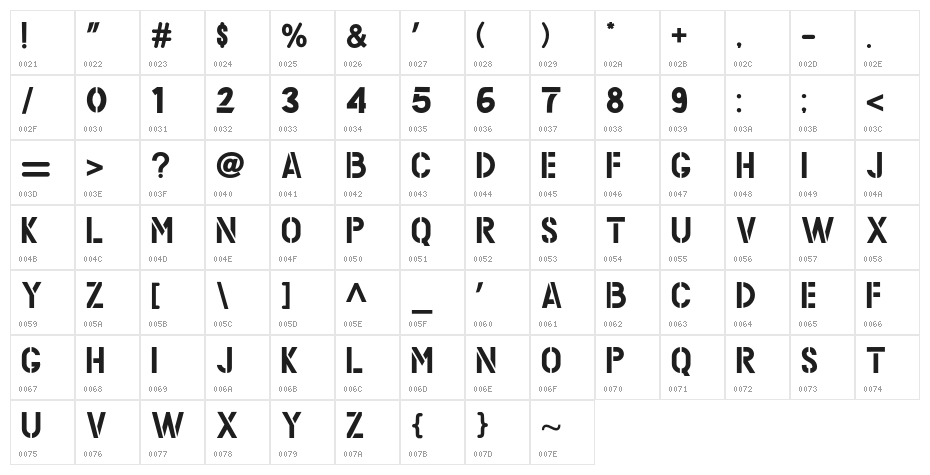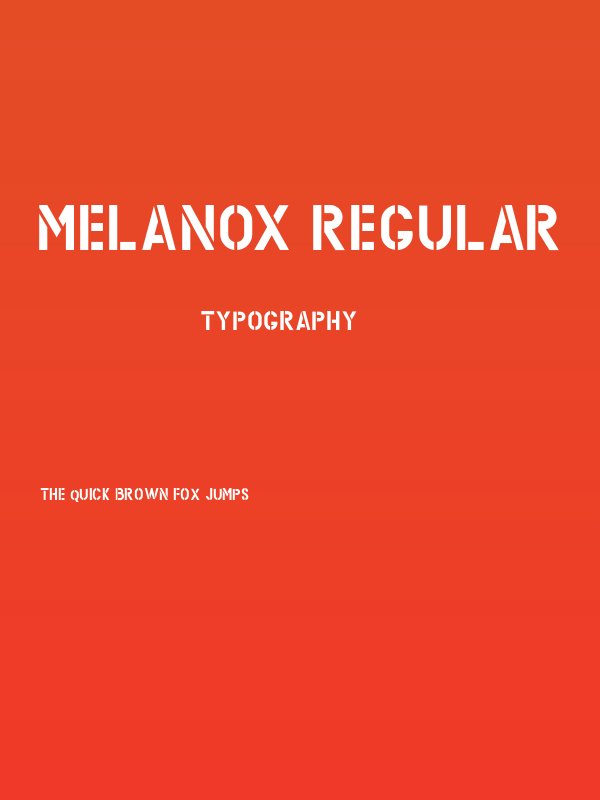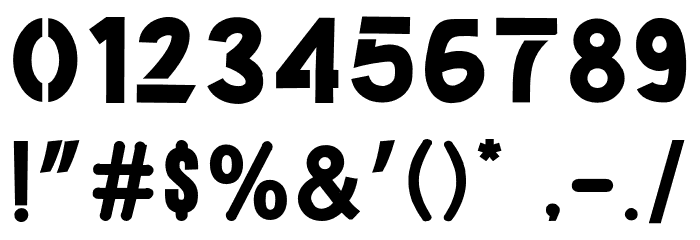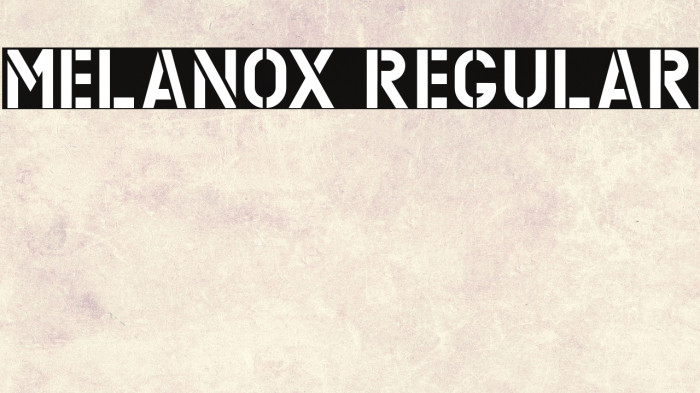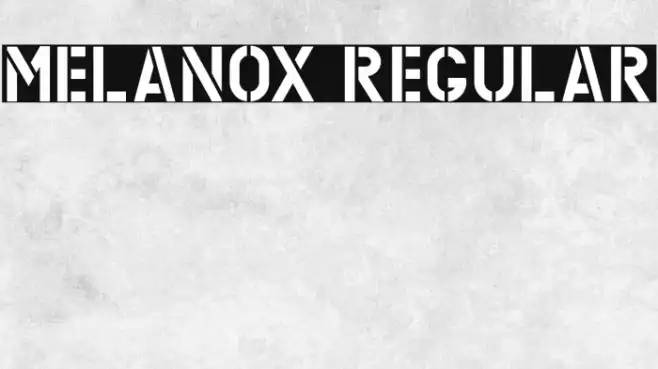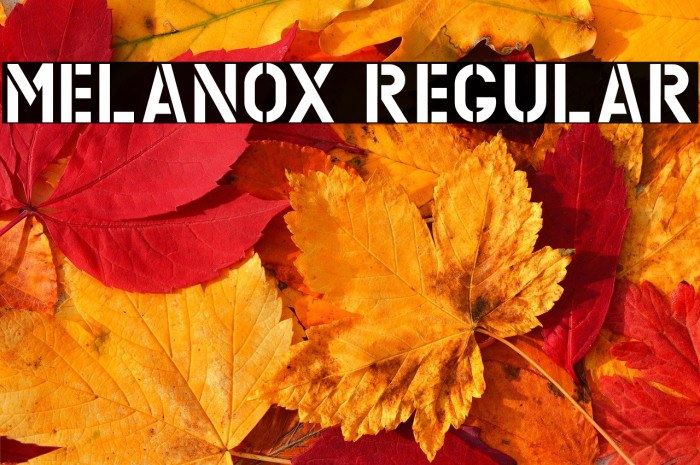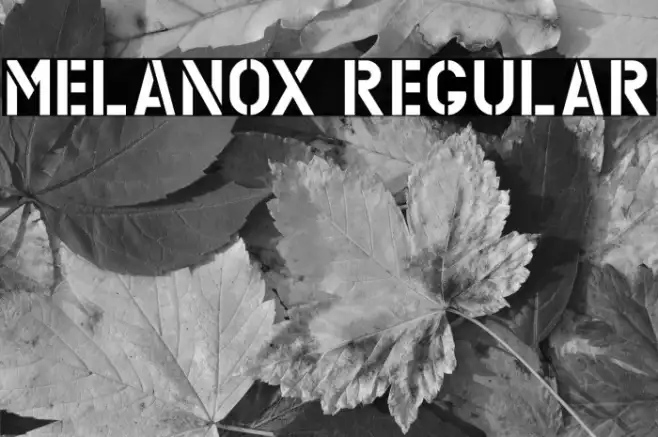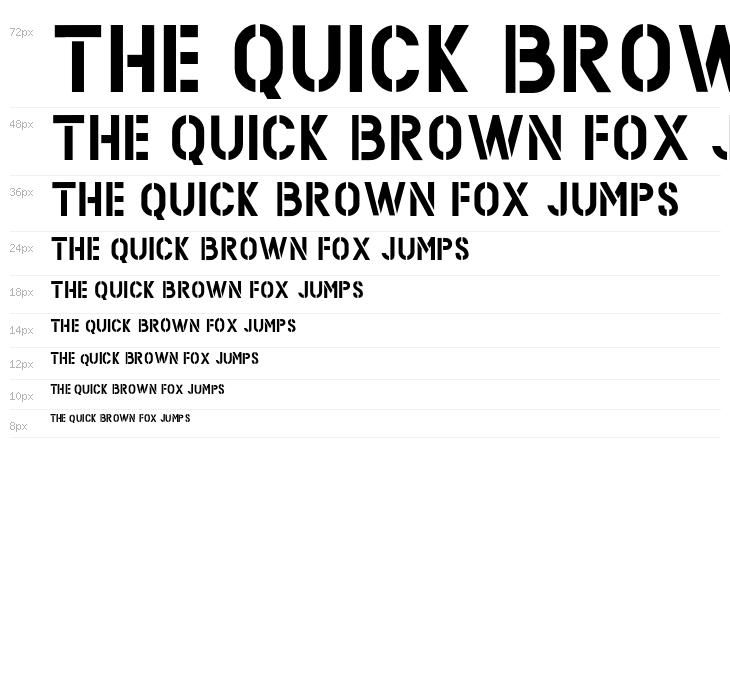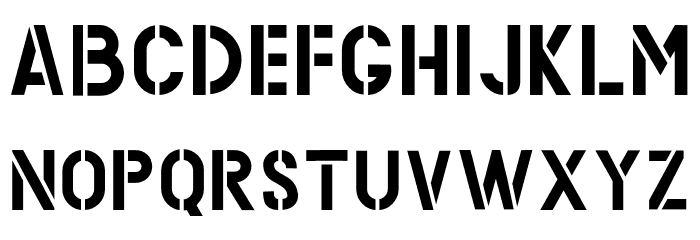
MELANOX Regular Font
MELANOX Regular Description
This font features a bold, geometric design with a stencil-like appearance. The characters are constructed with clean, straight lines and sharp angles, giving it a modern and industrial feel. The uppercase letters are uniform in height, while the lowercase letters maintain a consistent style with slightly reduced size. The numbers and special characters follow the same design principles, ensuring a cohesive look across all glyphs. The font's distinct cut-out sections within each character add a unique visual interest, making it stand out in various design applications.